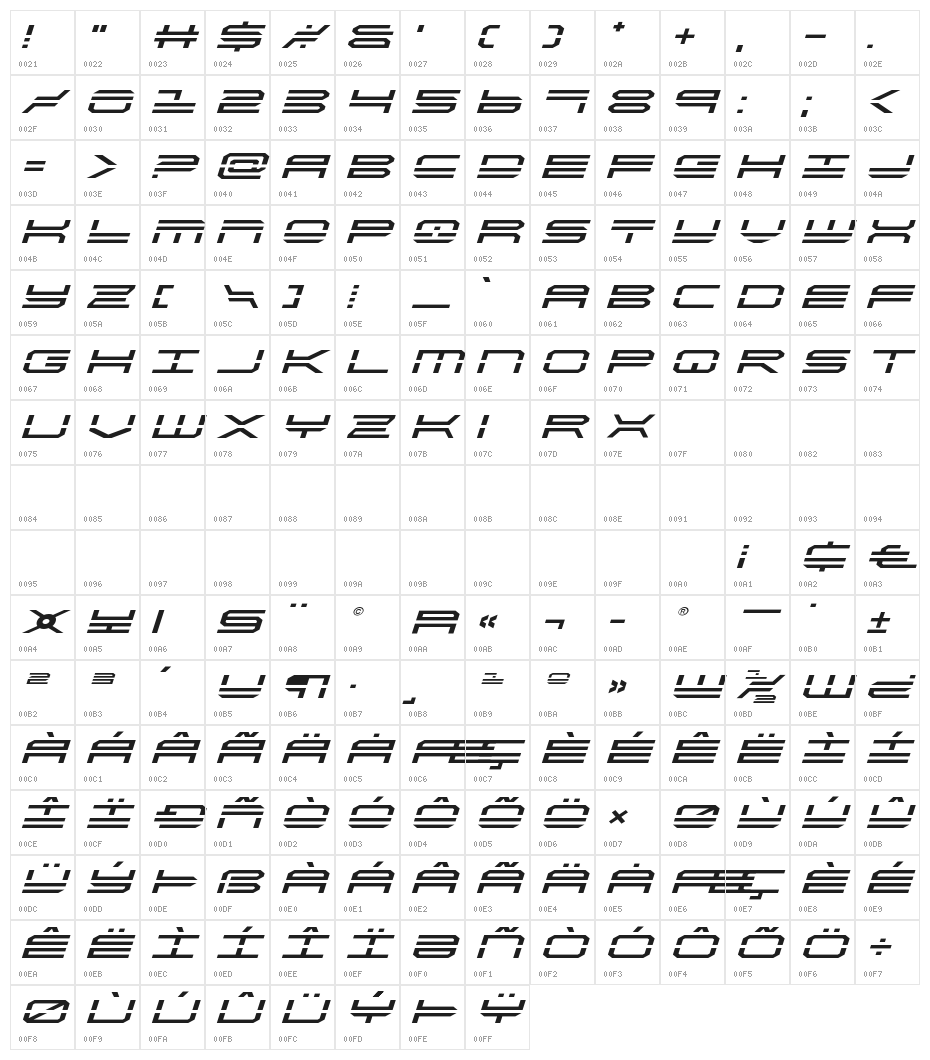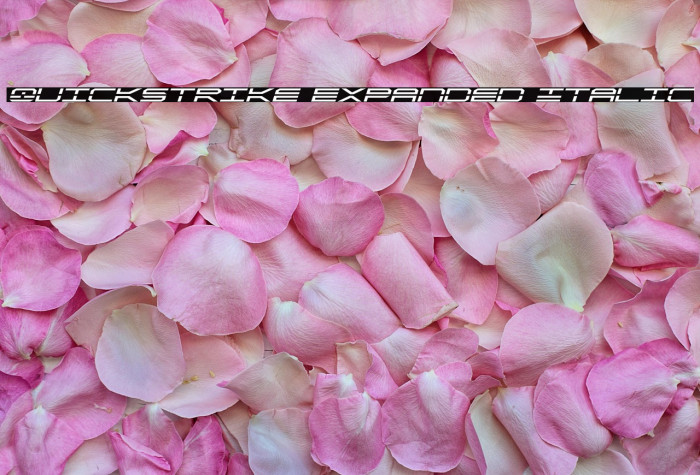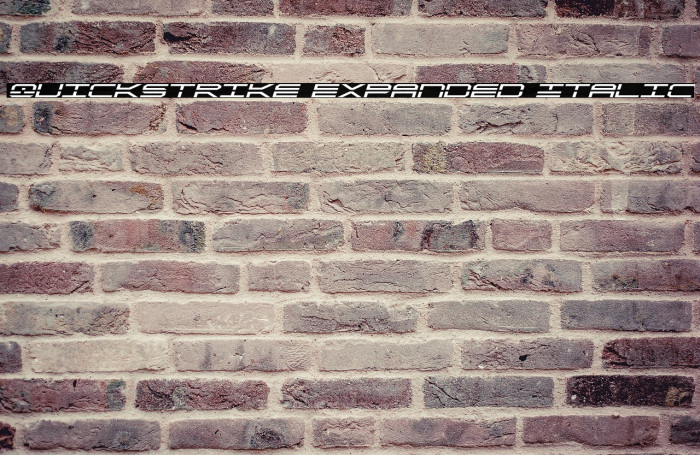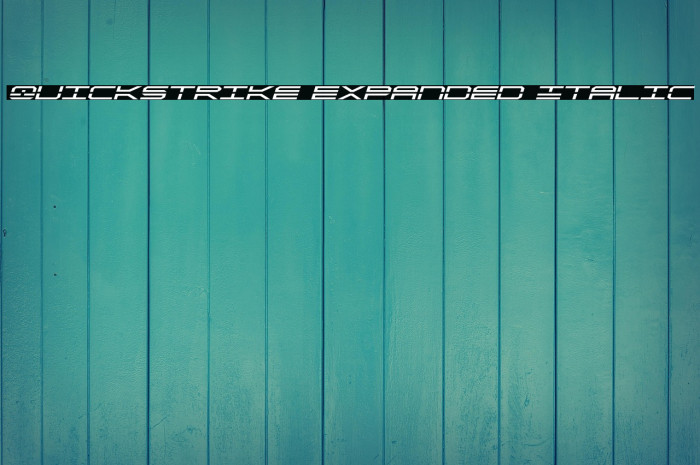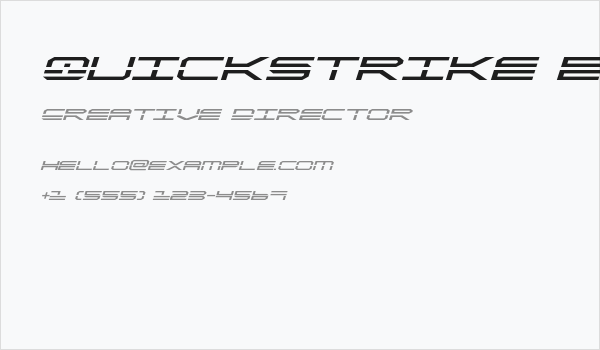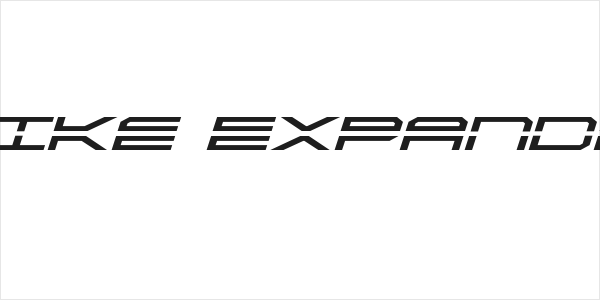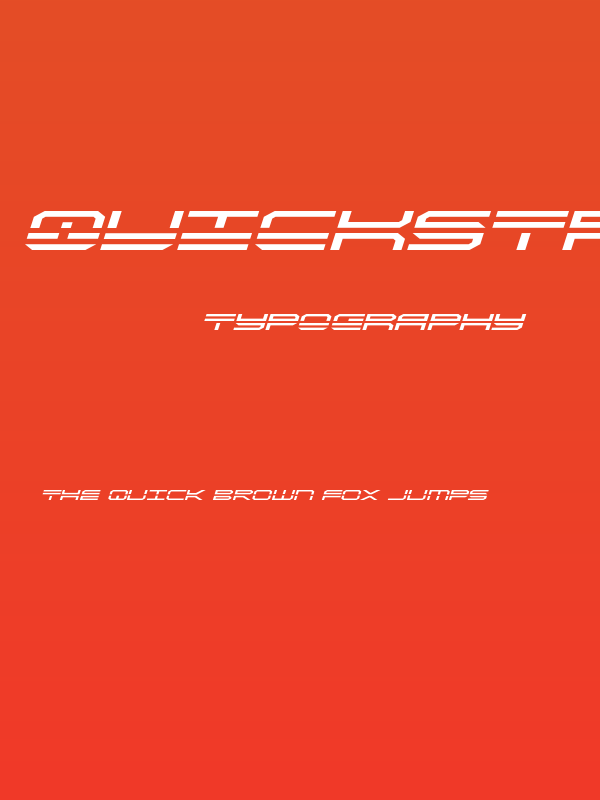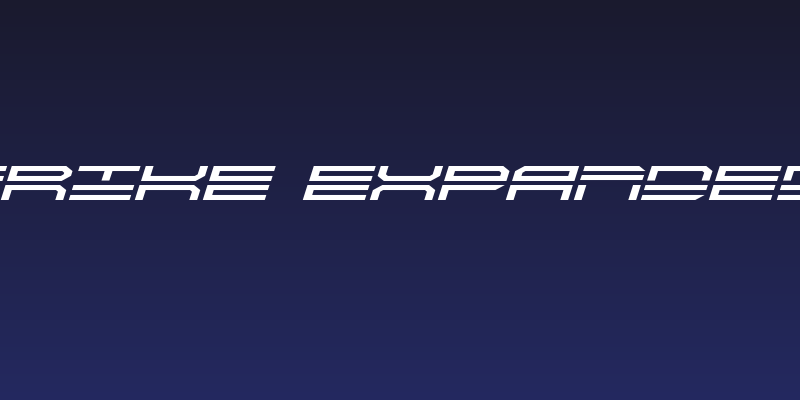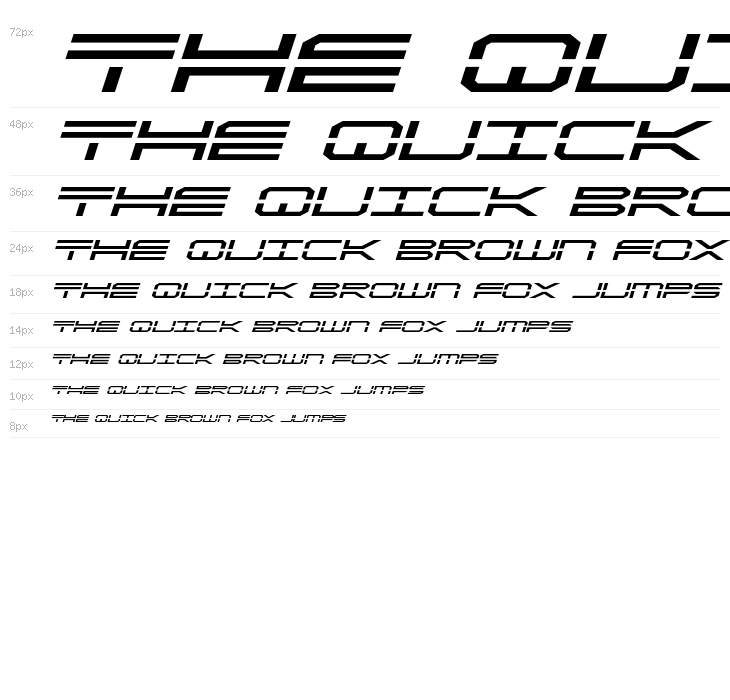
QuickStrike Expanded Italic Font
QuickStrike Expanded Italic Description
This font features a futuristic and dynamic design with a distinct italic slant, giving it a sense of motion and speed. The characters are constructed with a series of parallel lines, creating a segmented appearance that adds to its modern and technological feel. The uppercase and lowercase letters maintain a consistent style, while the numerals and special characters complement the overall aesthetic. The expanded width of the characters enhances readability and makes a bold statement, suitable for projects that require a strong visual impact.